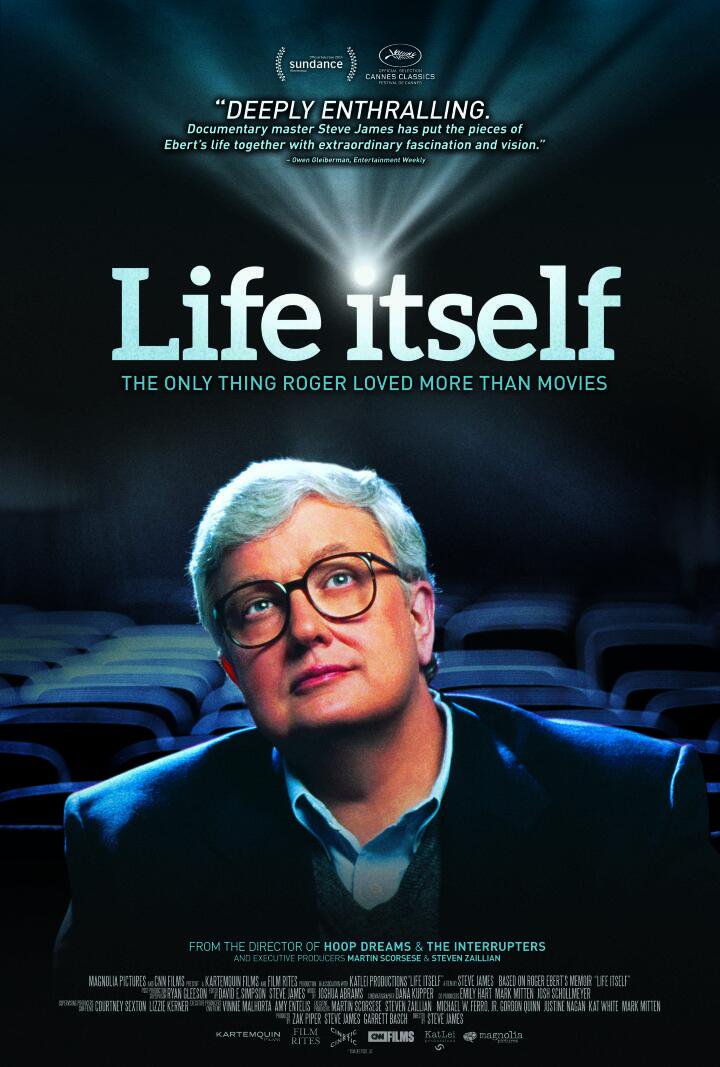
Life Itself (film) Font
DocumentaryLife Itself is a 2014 documentary film directed by Steve James, which explores the life and legacy of film critic Roger Ebert through interviews, archival footage, and personal reflections. On the poster, the film title is set in Aleo Bold, designed by Alessio Laiso.